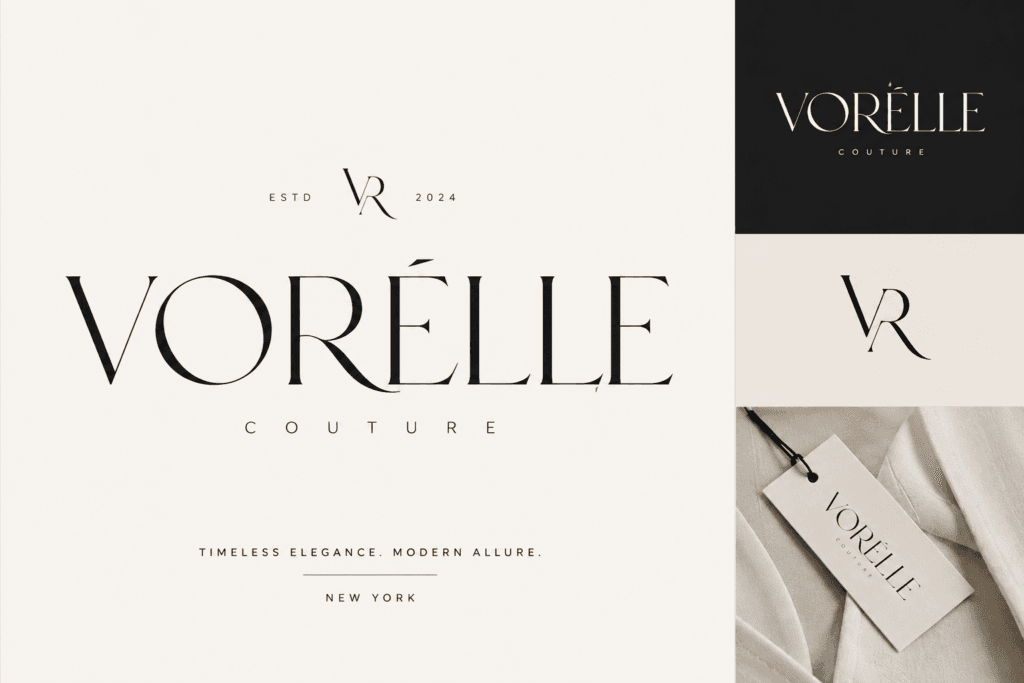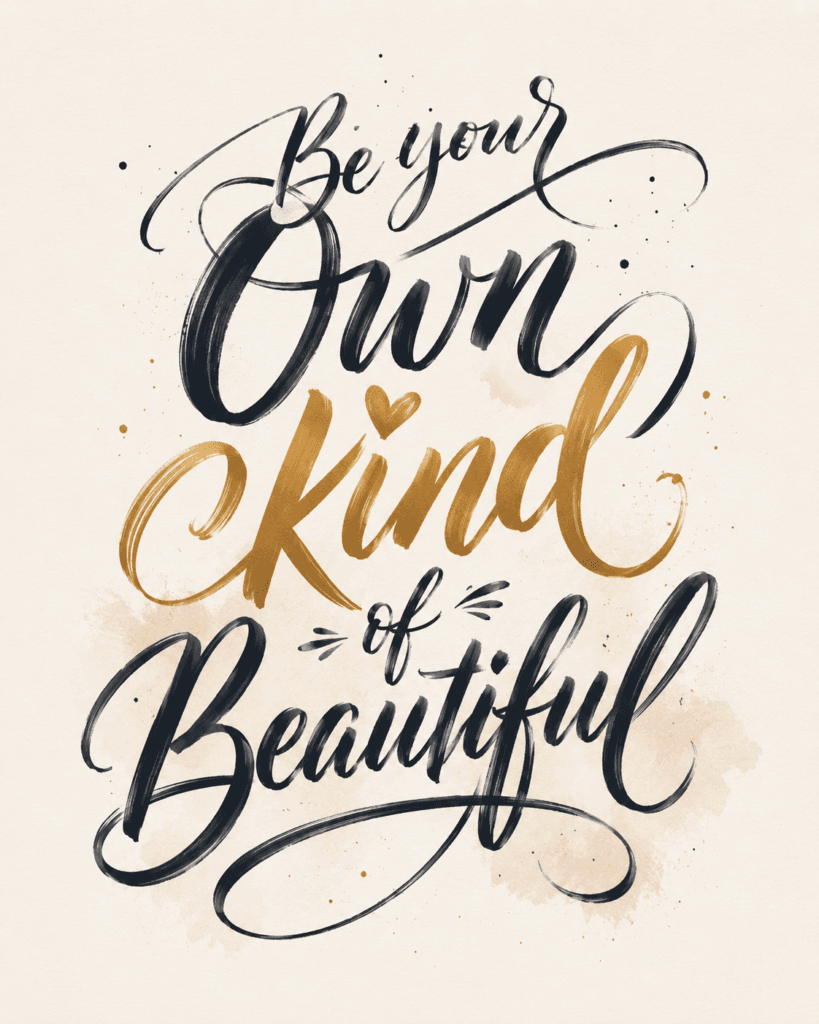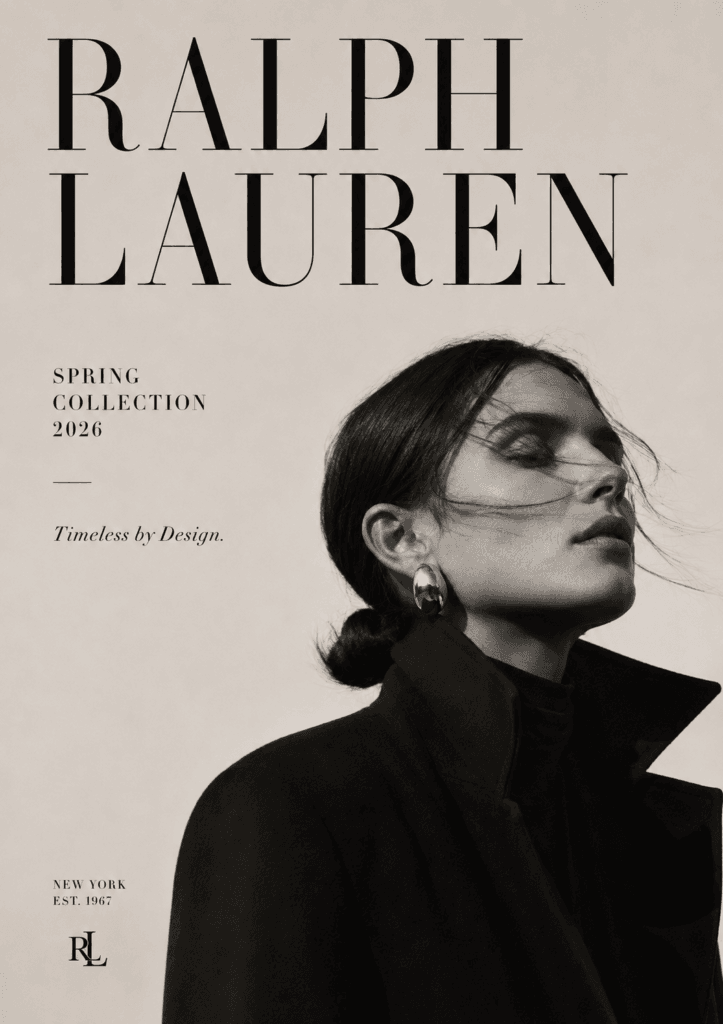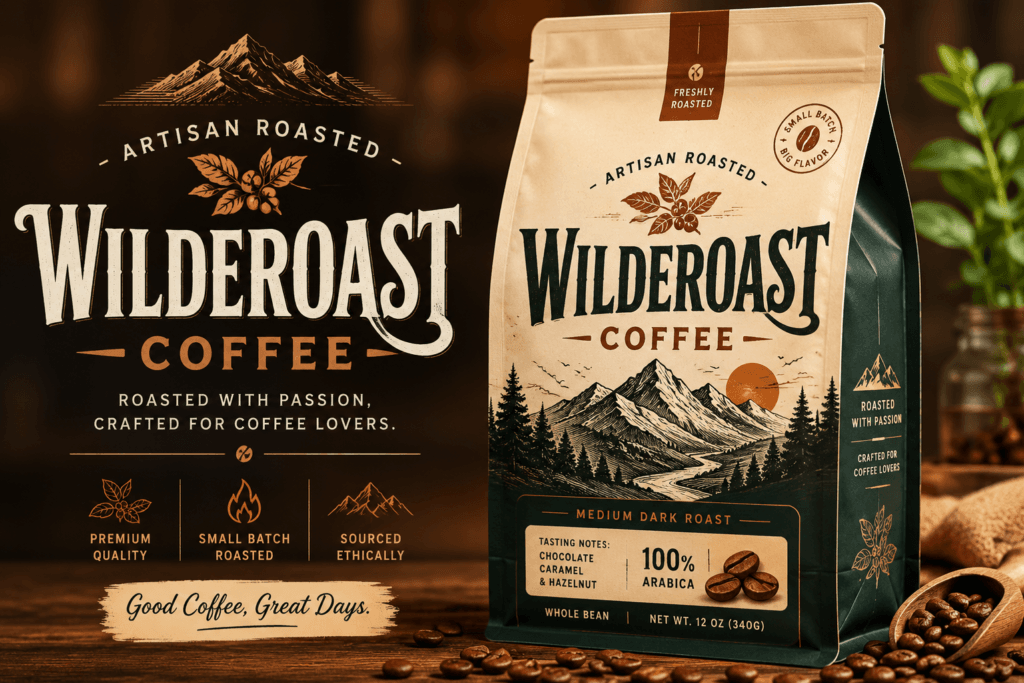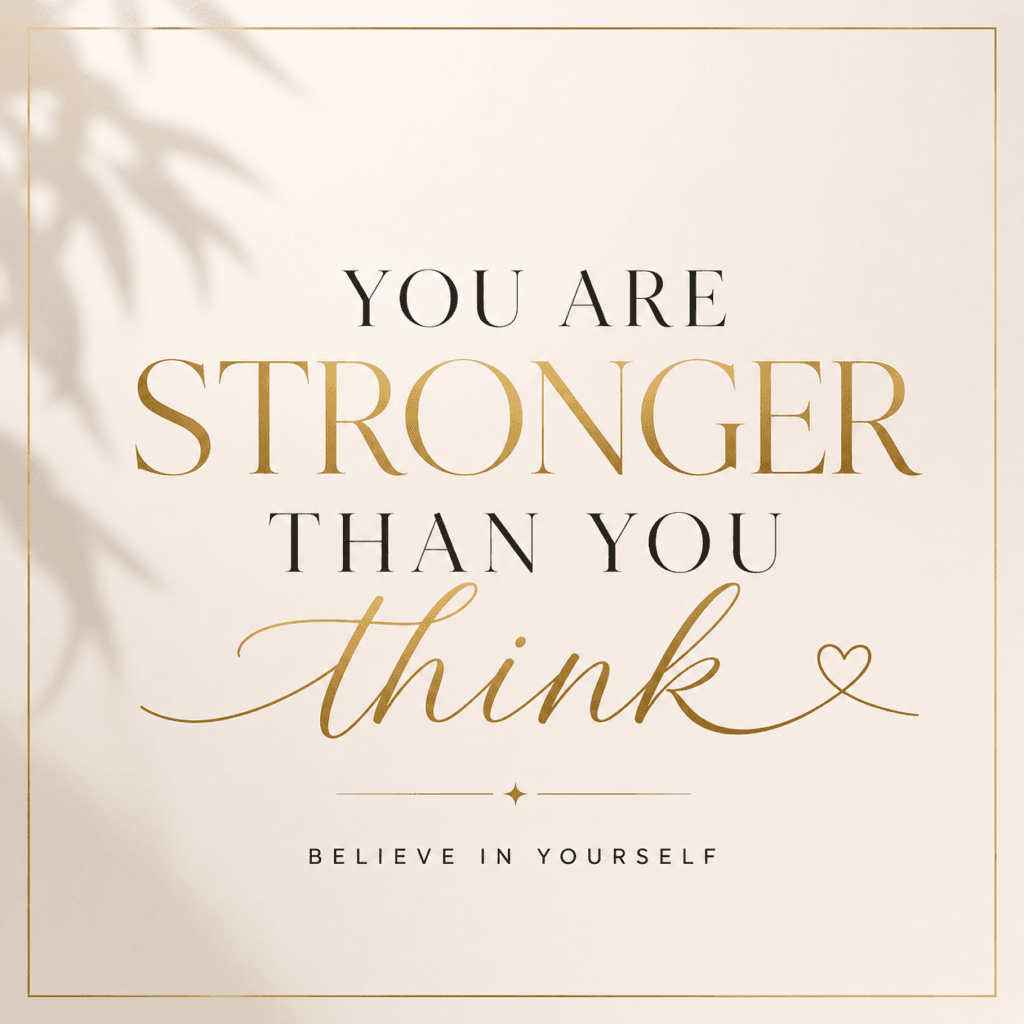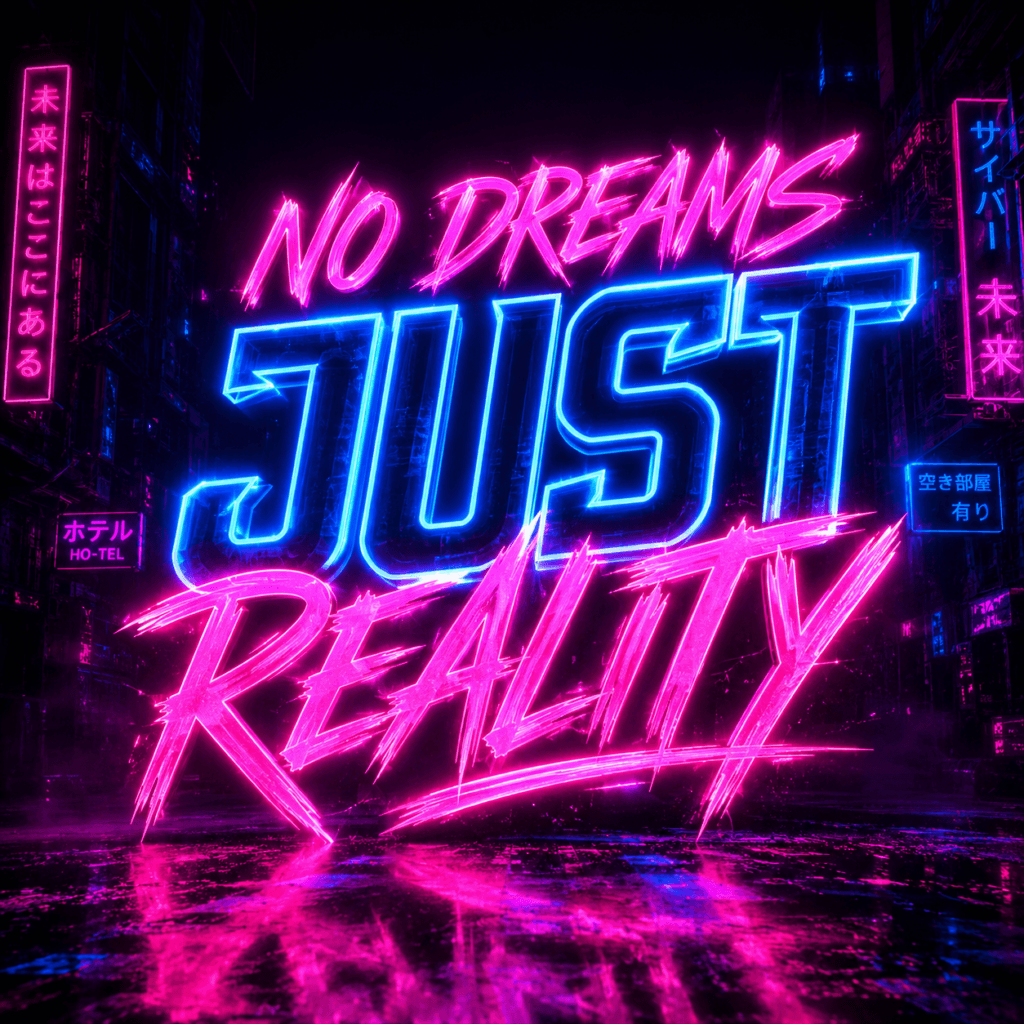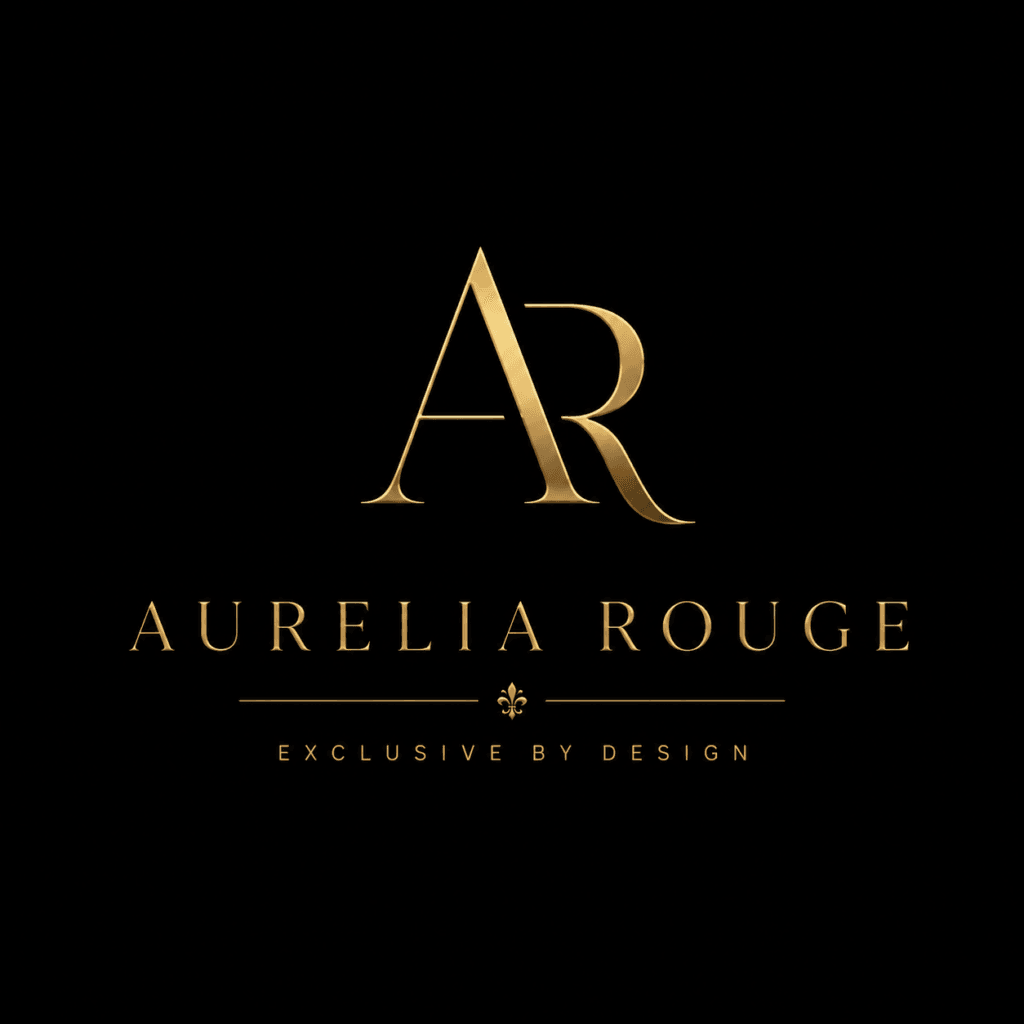
Using AI prompts for typography has become one of the fastest ways for designers and creators to generate unique lettering concepts, branding ideas, and creative text-based visuals. Whether you are working on logos, posters, packaging, social media graphics, or brand identity projects, AI tools can help accelerate the creative process while providing fresh visual inspiration.
Typography is one of the most important elements of design. The right letterforms can communicate professionalism, elegance, energy, luxury, or creativity before a viewer even reads the message. That is why many designers now use AI prompts for typography to explore different styles and concepts quickly.
Modern AI image tools allow creators to generate visual typography ideas that would normally take hours of sketching and experimentation. With the right prompts, designers can create custom lettering, logo concepts, poster headlines, editorial typography, and decorative text treatments in minutes.
In this guide, you will discover practical AI prompts for typography, copy-paste examples, creative lettering styles, and prompt-writing techniques that help produce more professional results.
Why AI Prompts for Typography Are Popular
Typography plays a major role in visual communication.
Good AI prompts for typography help designers:
- Generate lettering concepts faster
- Explore creative styles
- Create branding inspiration
- Improve design workflows
- Develop unique visual identities
- Experiment with different aesthetics
AI tools are becoming valuable creative assistants rather than replacements for design skills.
Understanding Typography Before Using AI Prompts
Before creating prompts, it helps to understand typography basics.
Typography includes:
- Letterforms
- Font styles
- Hierarchy
- Readability
- Visual balance
- Brand personality
Strong typography supports both communication and aesthetics.
What Makes Typography Look Professional
Professional typography often focuses on:
- Consistent spacing
- Clear hierarchy
- Balanced proportions
- Strong readability
- Appropriate style selection
The best AI prompts for typography usually include these characteristics.
AI Prompts for Typography Logos
Typography logos remain one of the most popular branding styles.
Many successful brands rely entirely on typography without additional symbols.
Modern Logo Typography Prompts
Prompt 1:
Professional luxury typography logo, elegant serif lettering, minimal composition, black and gold aesthetic, premium brand identity, clean spacing, modern logo presentation
Prompt 2:
Modern technology typography logo, geometric sans serif lettering, futuristic branding style, clean layout, professional visual identity
Prompt 3:
Creative handwritten typography logo, sophisticated signature lettering, luxury branding, elegant composition, minimalist presentation
These AI prompts for typography work well for logo exploration and brand identity concepts.
Example Professional Luxury Typography Logo.
AI Prompts for Typography Posters
Poster design often relies heavily on typography.
Strong headlines become the primary visual focus.
Creative Typography Poster Prompts
Prompt 1:
Large bold typography poster, editorial design style, black and white color palette, modern magazine aesthetic, dramatic text hierarchy
Prompt 2:
Experimental typography poster, oversized lettering, contemporary graphic design, artistic composition, creative visual balance
Prompt 3:
Minimal typography poster, elegant serif headlines, luxury fashion campaign aesthetic, premium editorial design
These prompts help designers create attention-grabbing layouts.
Example Minimal Typography Poster.
AI Prompts for Typography Branding Projects
Branding projects require typography that reflects personality and values.
Different industries need different visual approaches.
Luxury Brand Typography Prompts
Prompt 1:
Luxury typography branding, elegant high-contrast serif lettering, premium packaging aesthetic, black and gold palette, sophisticated visual identity
Prompt 2:
Fashion brand typography design, modern editorial lettering, luxury branding presentation, minimalist composition
Minimal Brand Typography Prompts
Prompt 1:
Minimal typography branding, clean sans serif letterforms, spacious layout, neutral color palette, professional identity system
Prompt 2:
Scandinavian-inspired typography branding, modern simplicity, elegant white space, premium design presentation
These AI prompts for typography help explore different branding directions.
Example Fashion Brand Typography Design.
AI Prompts for Typography Social Media Graphics
Social media content requires typography that stands out quickly.
The best results come from combining detailed prompts with strong typography fundamentals. Understanding hierarchy, readability, spacing, and brand personality remains essential, even when using AI-generated concepts.
Whether you are creating logos, posters, packaging, social media graphics, or custom lettering projects, effective AI prompts for typography can help you develop professional-looking visuals while expanding your creative possibilities.